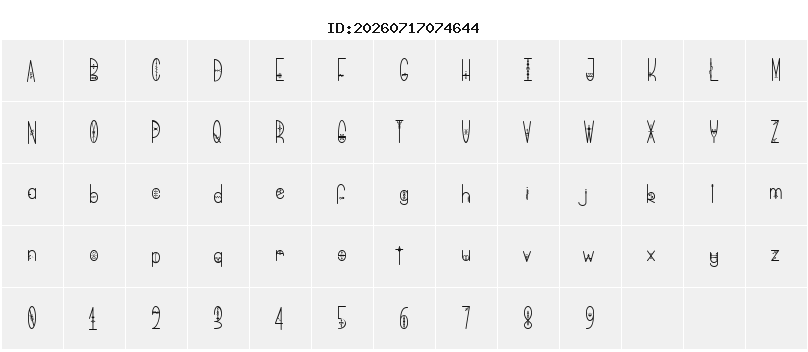
• Font Name: Bring me That Glyph
• Designer: dcoxy Medina Gregory
Bring me That Glyph.ttf is a modern, elegant sans-serif font designed for ultimate readability and visual harmony. Perfect for branding, headlines, web design, and print materials.